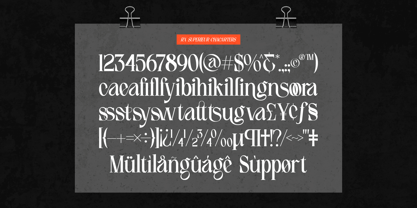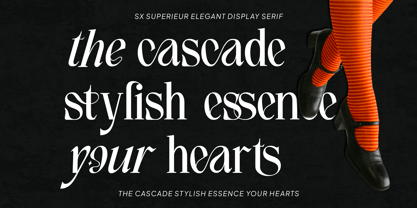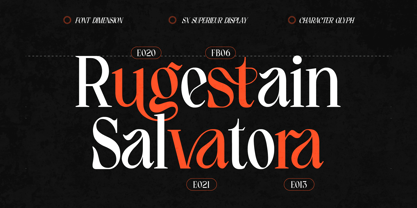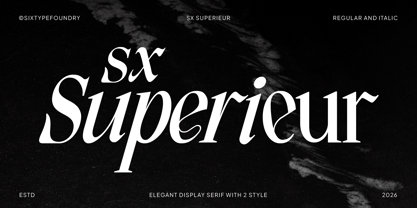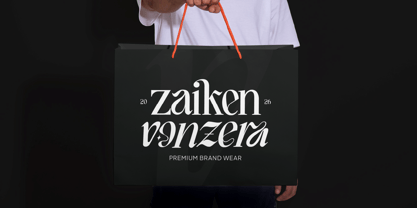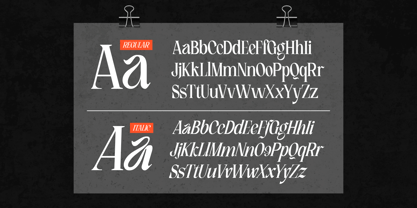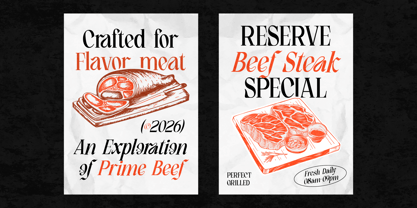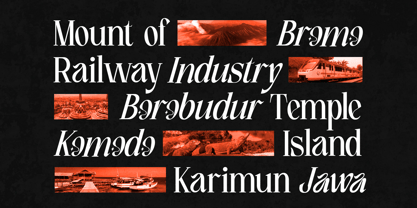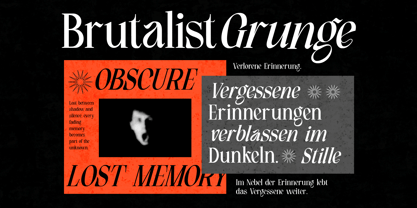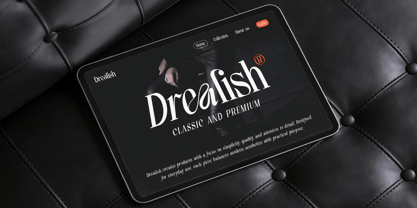
Sx Superieur
The Sx Superieur Font Family and published by Sixtype Foundry. Sx Superieur contains 2 styles and family package options. More about this family
Sx Superieur features a tall, condensed serif structure that exudes an editorial, high-fashion aesthetic. The letterforms are narrow and elongated, showcasing sharp contrast and refined detailing, particularly evident in the curled "e" and pointed serifs, which contribute to its dramatic, couture-inspired presence. The Italic variant enhances this drama with a fluid, calligraphic slant. This elongated, refined character shines in display sizes, projecting sophistication and an editorial flair while maintaining its serif integrity. The Italic naturally complements the Regular style, making it ideal for emphasis, pull quotes, or standalone accents. Imagine Sx Superieur gracing the cover of a fashion magazine, anchoring a couture or luxury brand wordmark, or featured prominently in an editorial fashion spread—this is where its character truly excels. Sx Superieur is perfect for fashion and couture branding, editorial headlines, magazine covers, luxury logo design, packaging design, and social media graphics that seek a tall, dramatic serif statement.